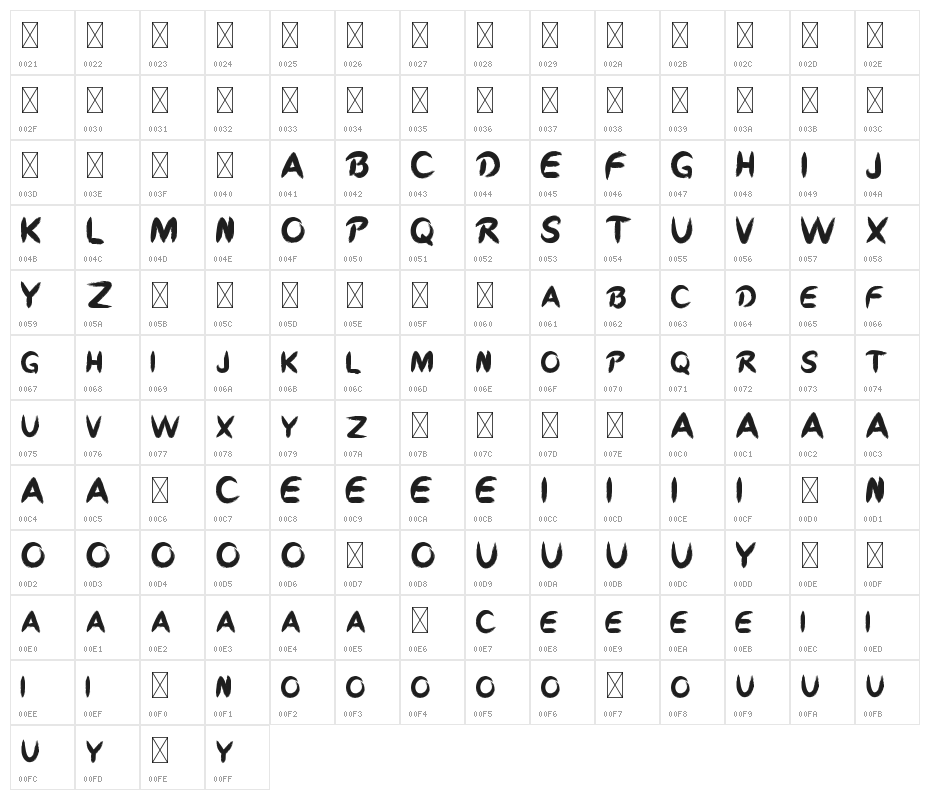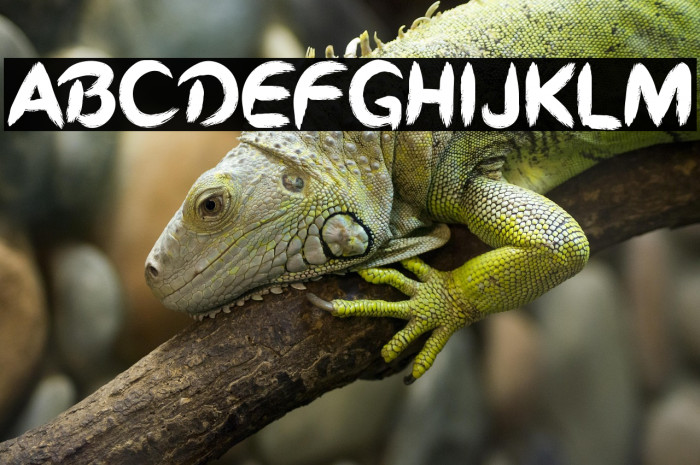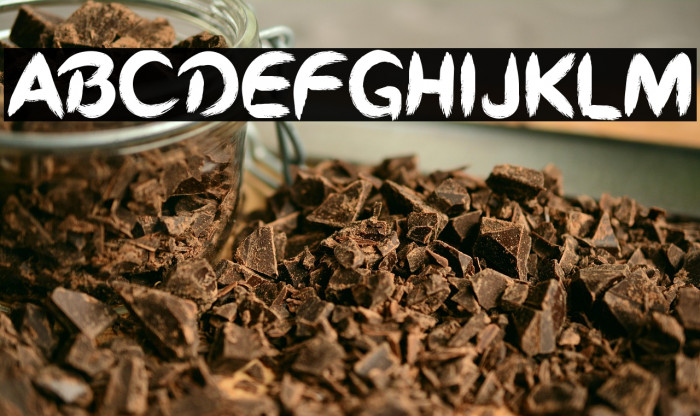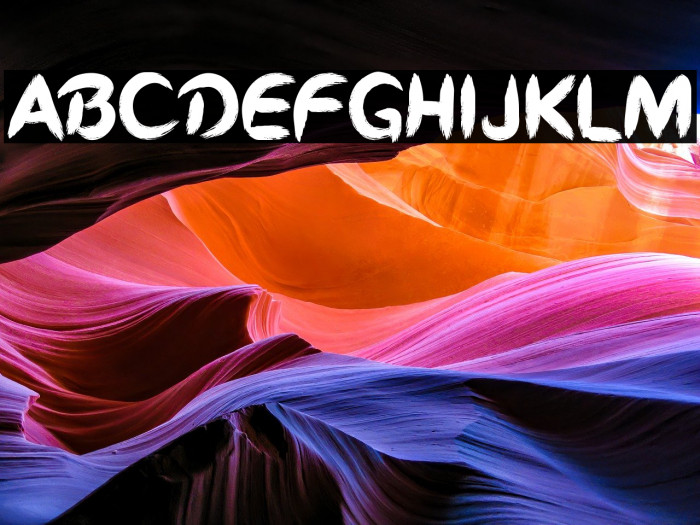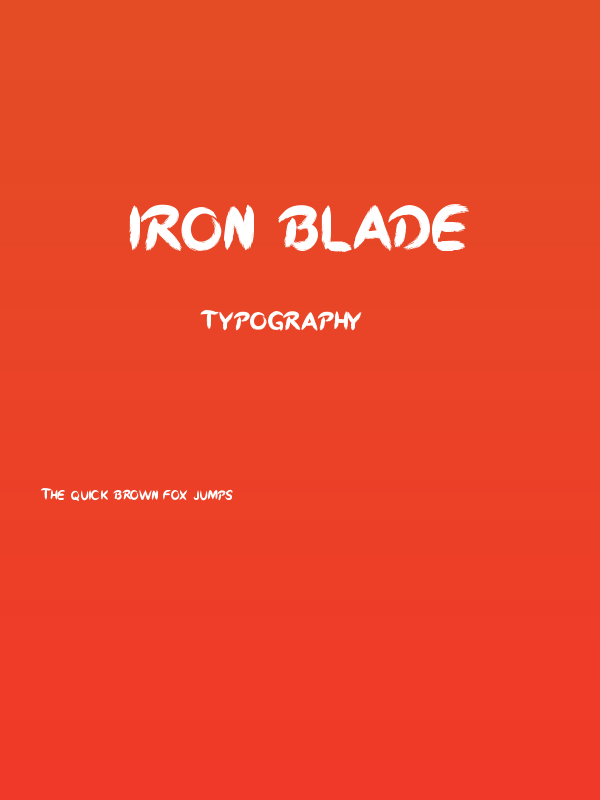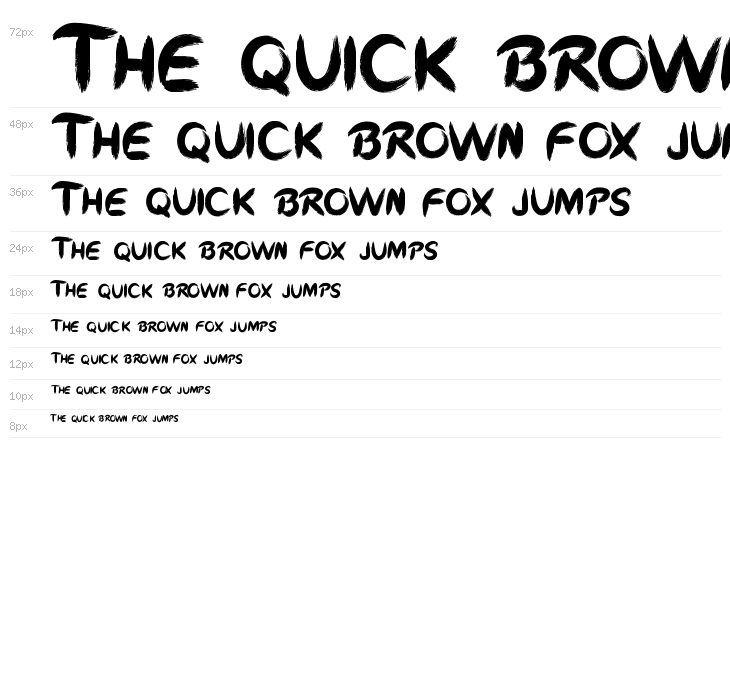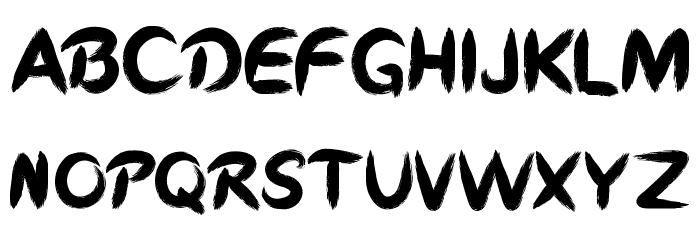
Iron Blade Font
Iron Blade Description
This font features a bold, brushstroke style that evokes a sense of dynamic movement and energy. The letters are crafted with thick, sweeping strokes that give an impression of strength and fluidity. Each character has a unique, hand-painted appearance, with varying stroke widths that add to its artistic flair. The overall design is reminiscent of calligraphy, yet maintains a modern edge with its bold presence. The uppercase letters are particularly striking, with their dramatic curves and sharp edges, making them ideal for attention-grabbing headlines or impactful logos.
| Proposed Projects | Ideal for branding, posters, and artistic projects that require a bold, expressive typeface. |